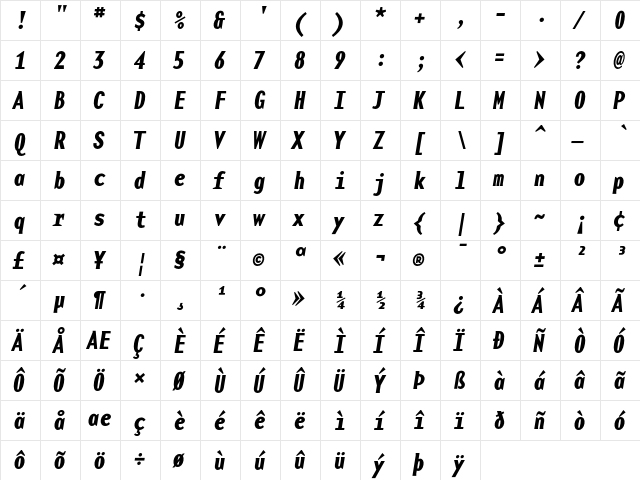
BaseMono Bold Italic Font Preview
| Foundry | C) Emigre Graphics; designed by Zuzana Licko |
Design Context for BaseMono Typeface
BaseMono uses fixed-width spacing throughout, giving it the structured, systematic character associated with coding environments and technical documentation. The slanted form adds forward momentum and visual energy. Its bold stroke weight gives it real presence on the page.
Pro Tip: Pair BaseMono with a proportional sans for UI contexts where code-style labels and regular body copy need to coexist.